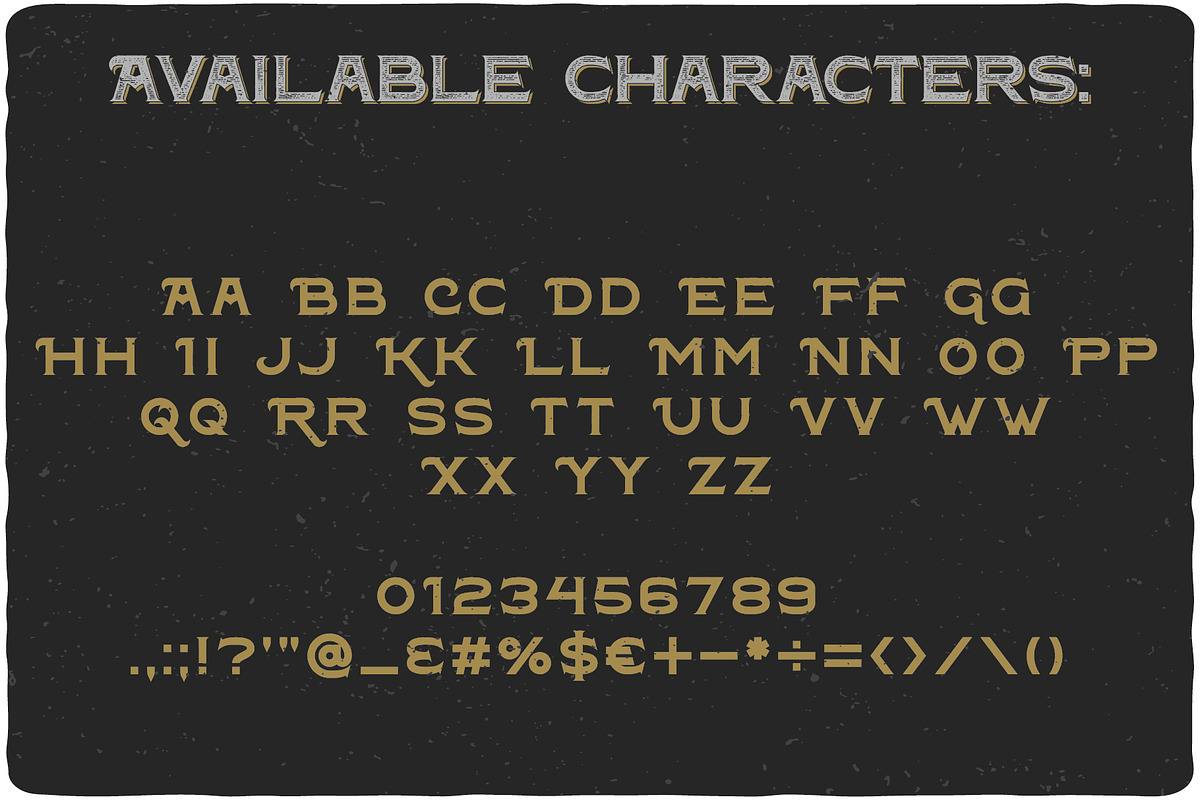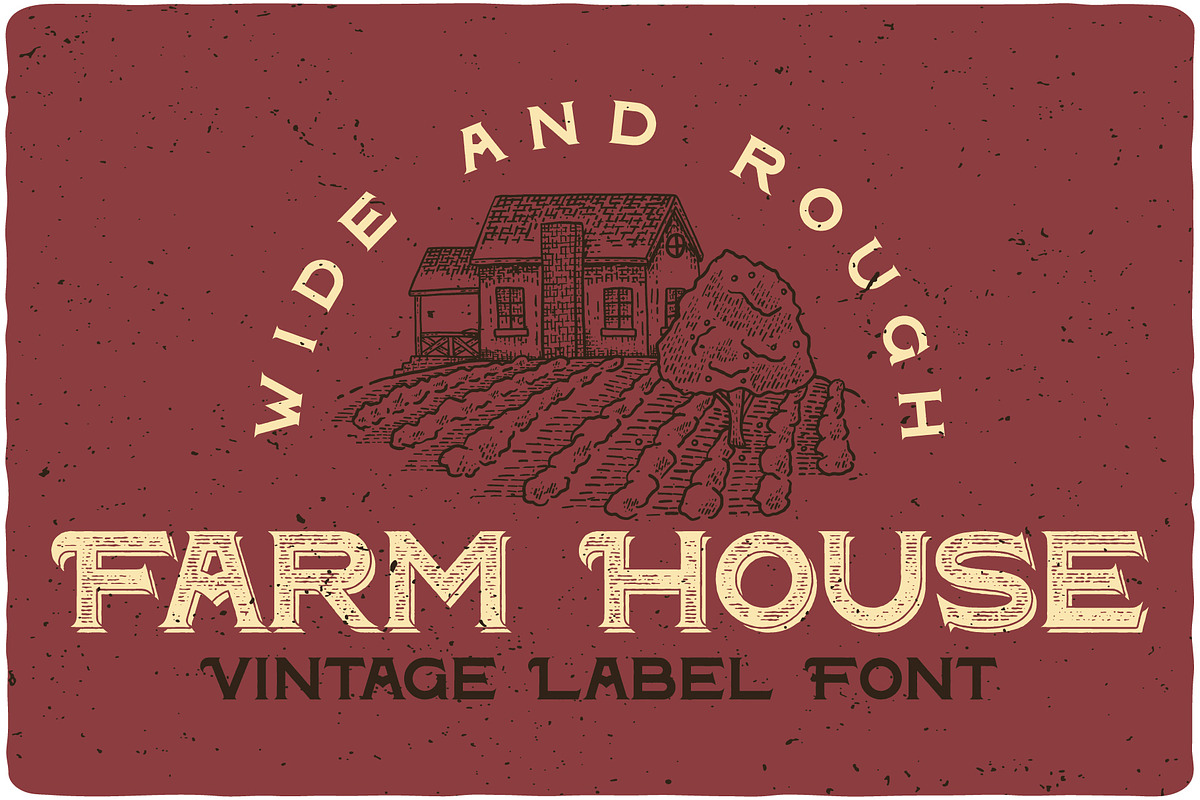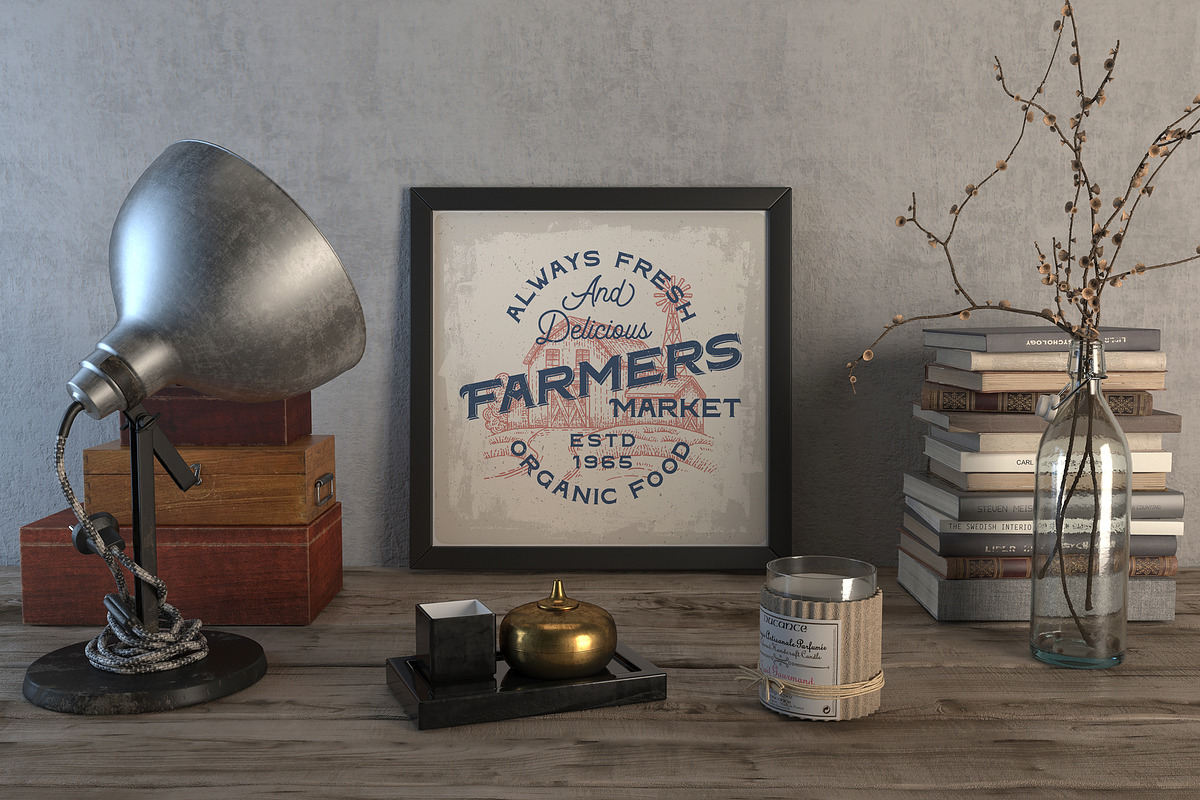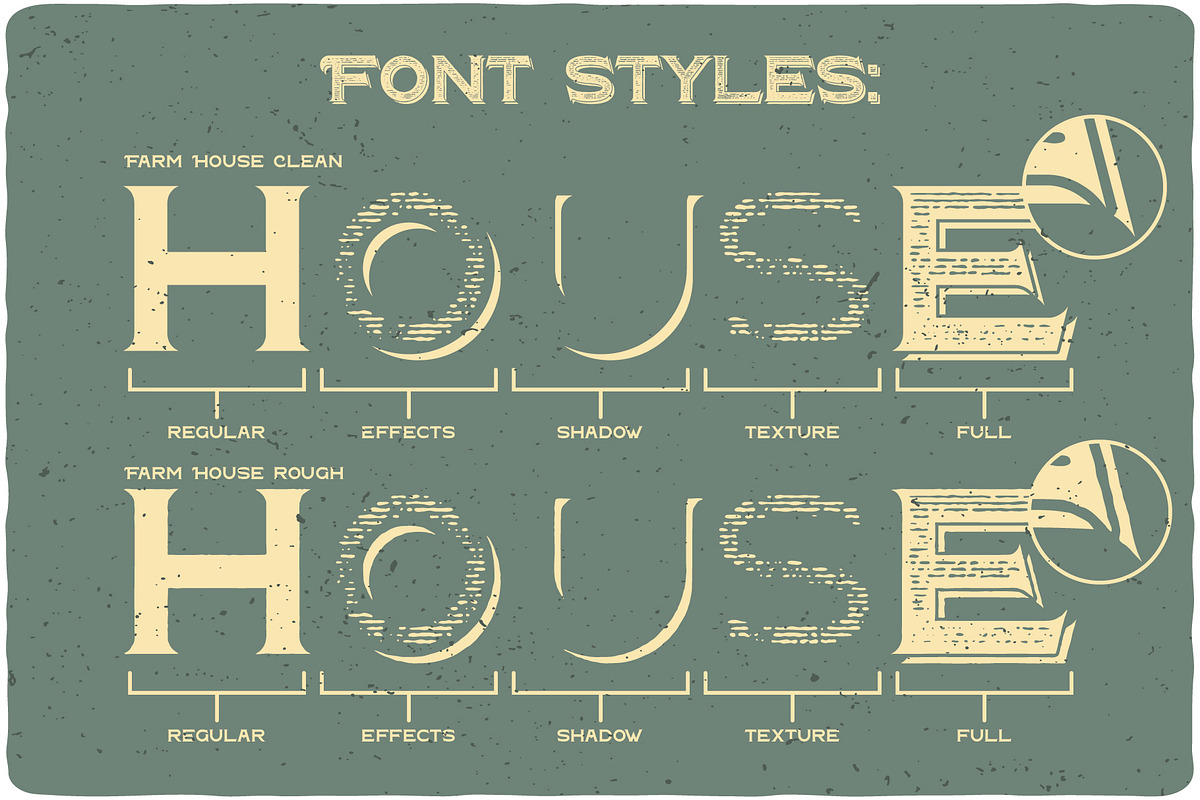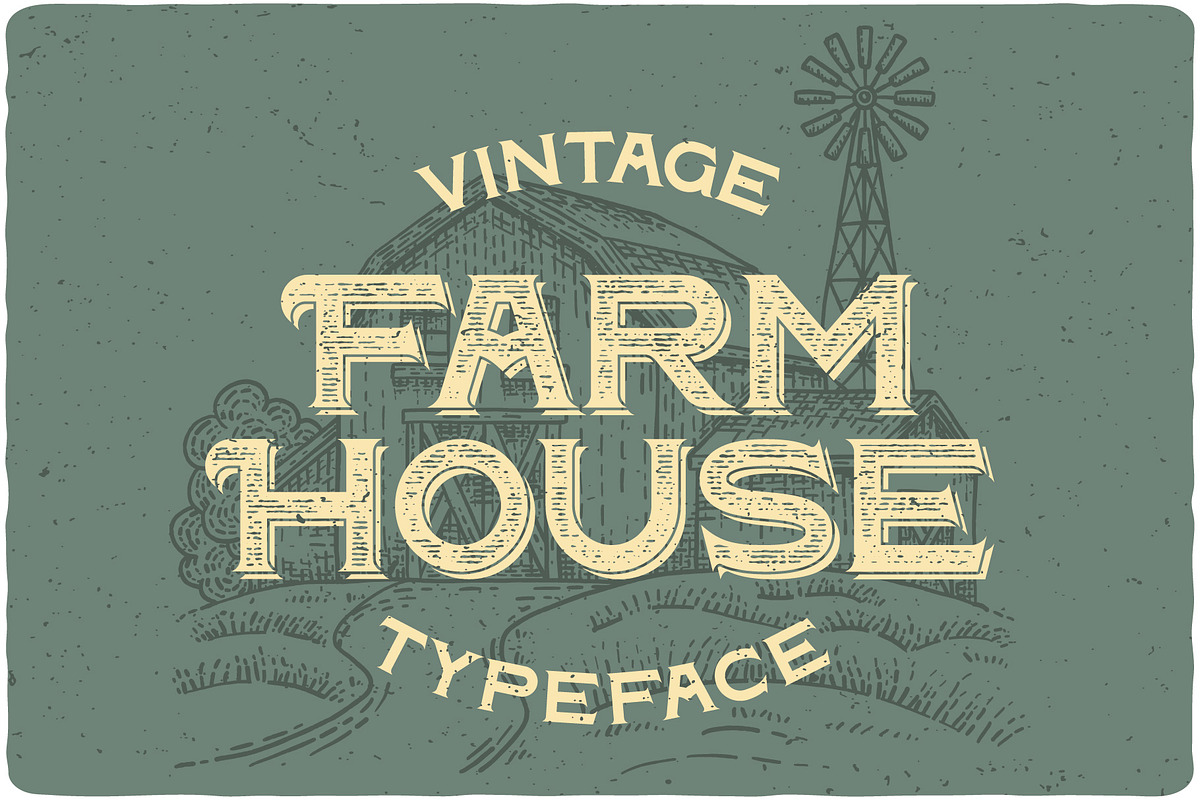
Farm House Typeface
Introducing a vintage look label font named "Farm House".Typeface includes five styles for clean version and five styles for rough version, for sample look at 4th preview. This font will good viewed on any retro design like poster, t-shirt, label, logo etc.